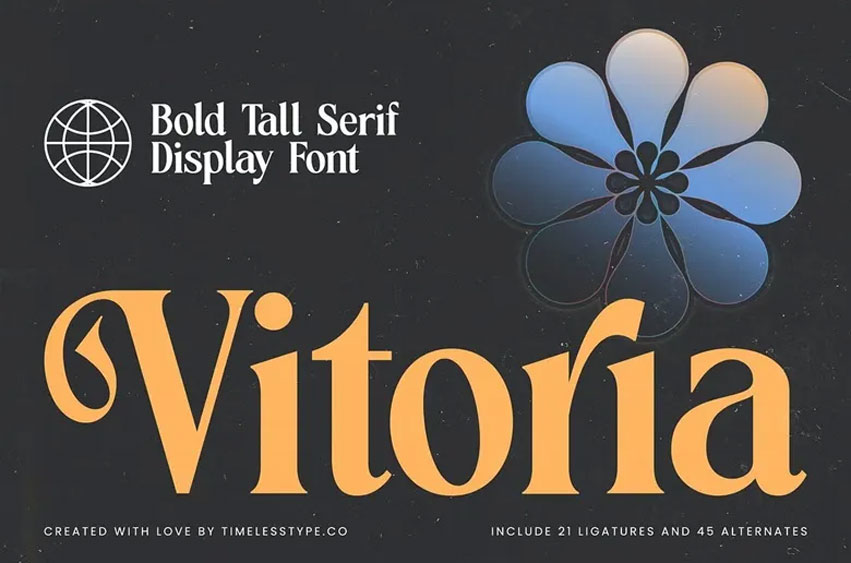
Vitoria Font is a bold tall serif display typeface, It’s suitable for any projects such as: Logos, branding projects, homeware designs, product packaging, mugs, quotes, posters, shopping bags, T-shirts, book covers, name card, invitation cards, greeting cards, label, photography, special events and all your other luxurious and aesthetically beautiful projects.